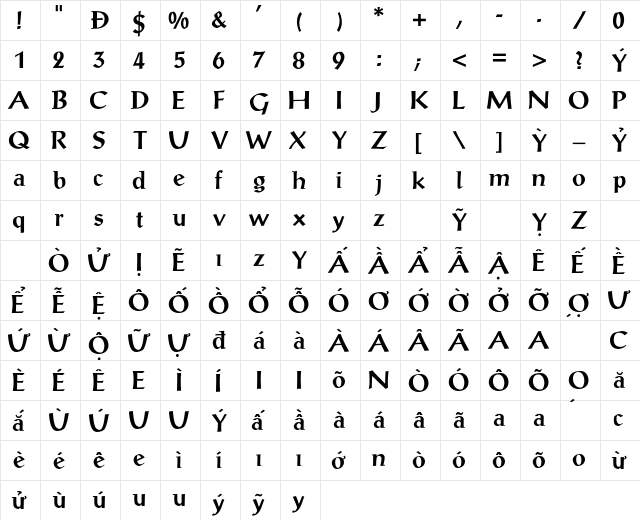
PostAntiqua Bold
Design Context for PostAntiqua Typeface
PostAntiqua offers clean, dependable letterforms without strong stylistic allegiance, making it a practical choice for designers who need flexibility. Its bold stroke weight gives it real presence on the page.